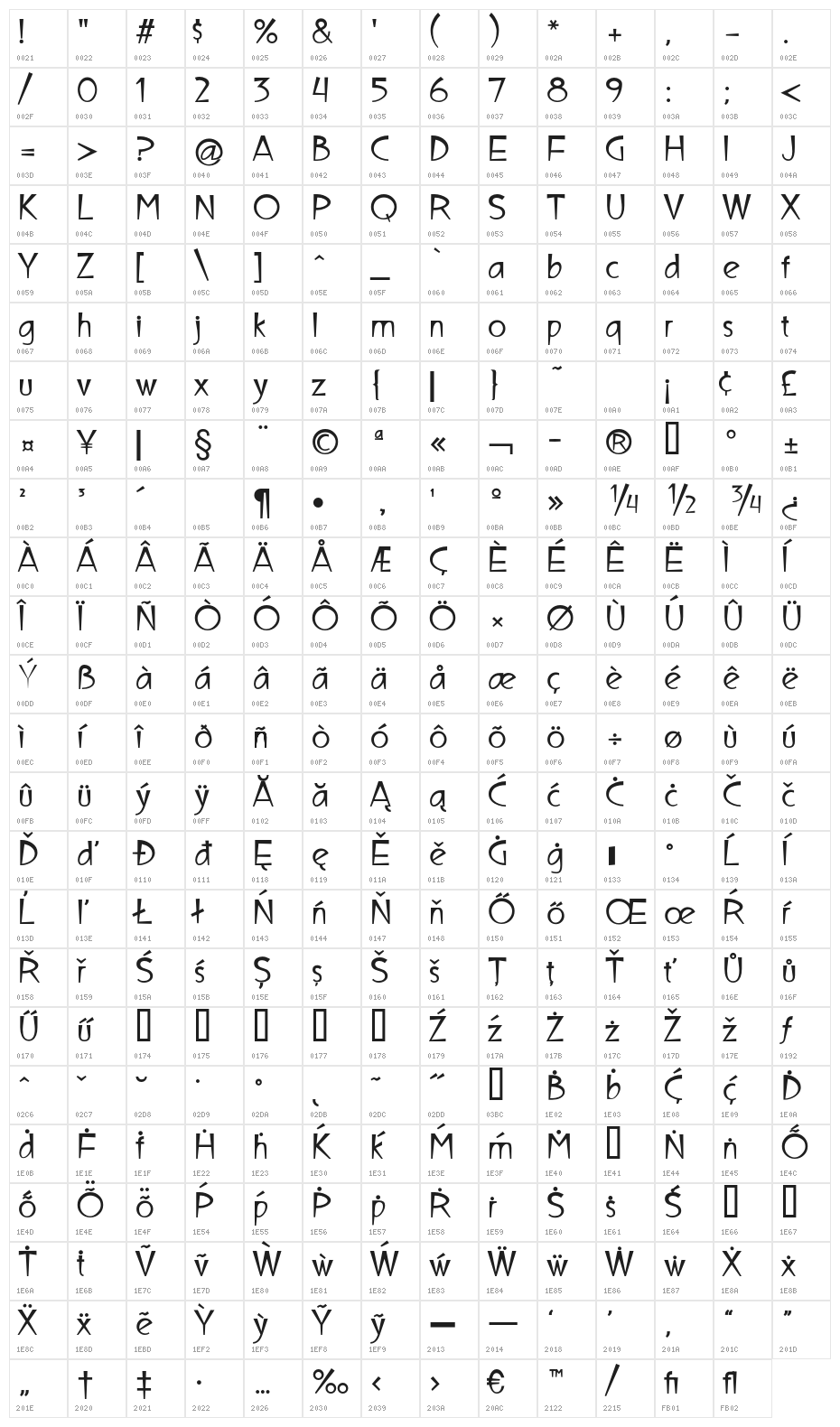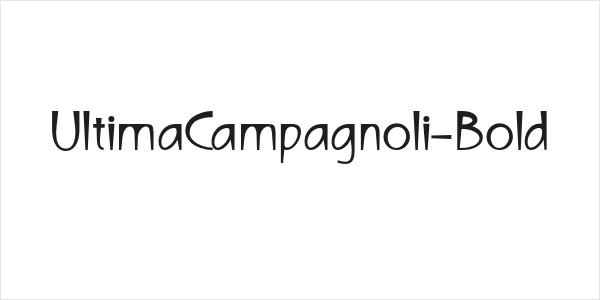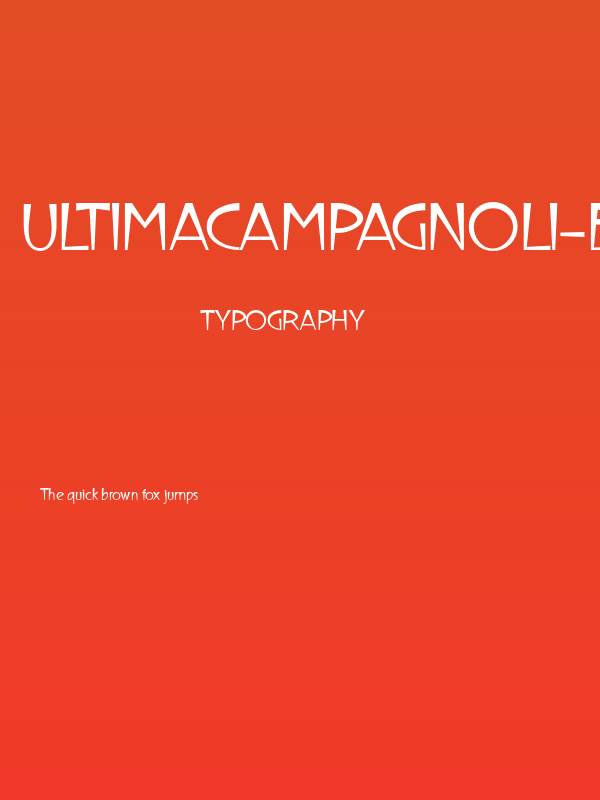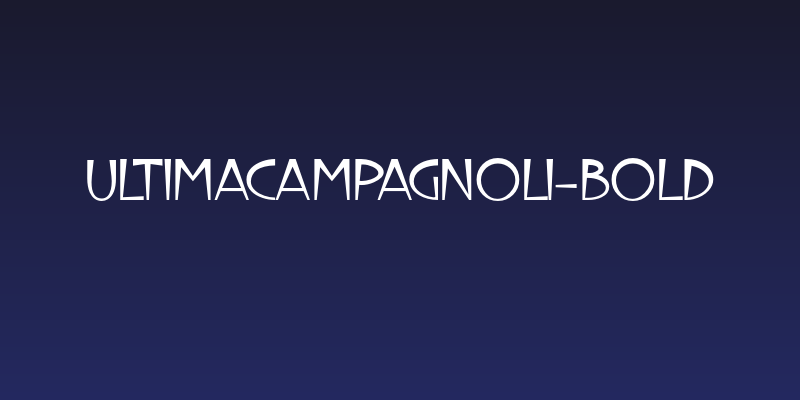
UltimaCampagnoli-Bold Font
UltimaCampagnoli-Bold Description
This font features a bold and dynamic style with a unique blend of geometric and organic forms. The uppercase letters exhibit a strong presence with their sharp angles and clean lines, while the lowercase letters maintain a playful and approachable feel. The numerals are distinct and easily readable, with a consistent weight that complements the alphabetic characters. Special characters are well-integrated, maintaining the overall aesthetic. The font's design is modern yet retains a touch of whimsy, making it versatile for various applications.
Proposed ProjectsIdeal for branding, advertising, posters, and packaging design where a bold statement is needed.